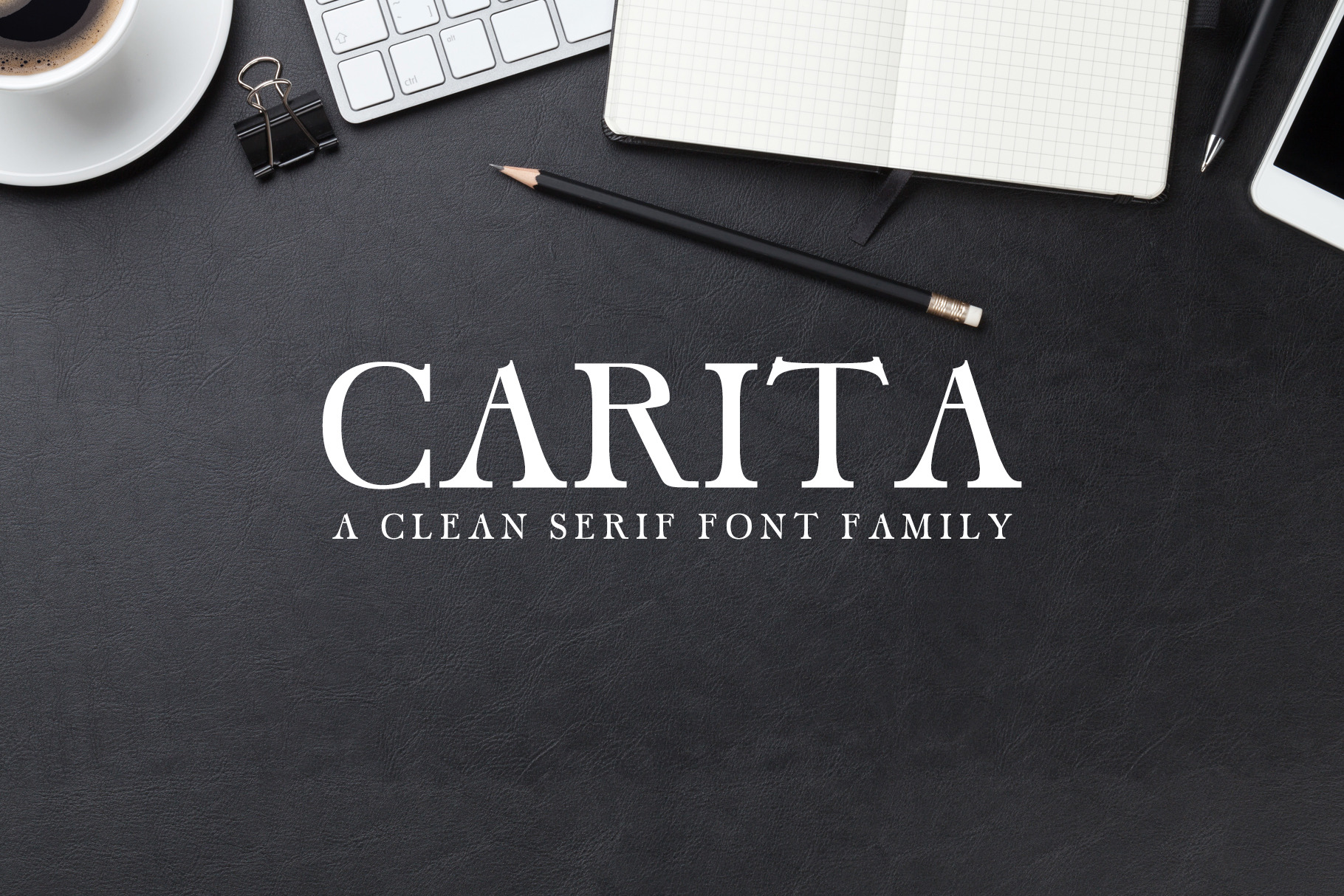
Carita Clean Serif Typeface is a set of 3 weights font family. It is good for making creative templates and stationary. Carita typeface suits best for modern / clean designs, logos, headlines, banners and templates etc.
It looks gorgeous in all caps with a wide-set spacing if you want to try a classy look, or beautiful on its own in capital and lowercase letters for something completely timeless.
- Regular, Thin and Light Weights
Highlights
- Carita is a highly versatile Font Family Pack.
- Includes 3 weights
- The perfect choice for Modern, Fashion & Magazine Titles.
- Great for use on quotes, short phrases, magazines, logotypes and all sorts of advertising.
- Uppercase Letters
- Lowercase Letters
- Non English Characters ( Latin Supplement + Latin Extended A)